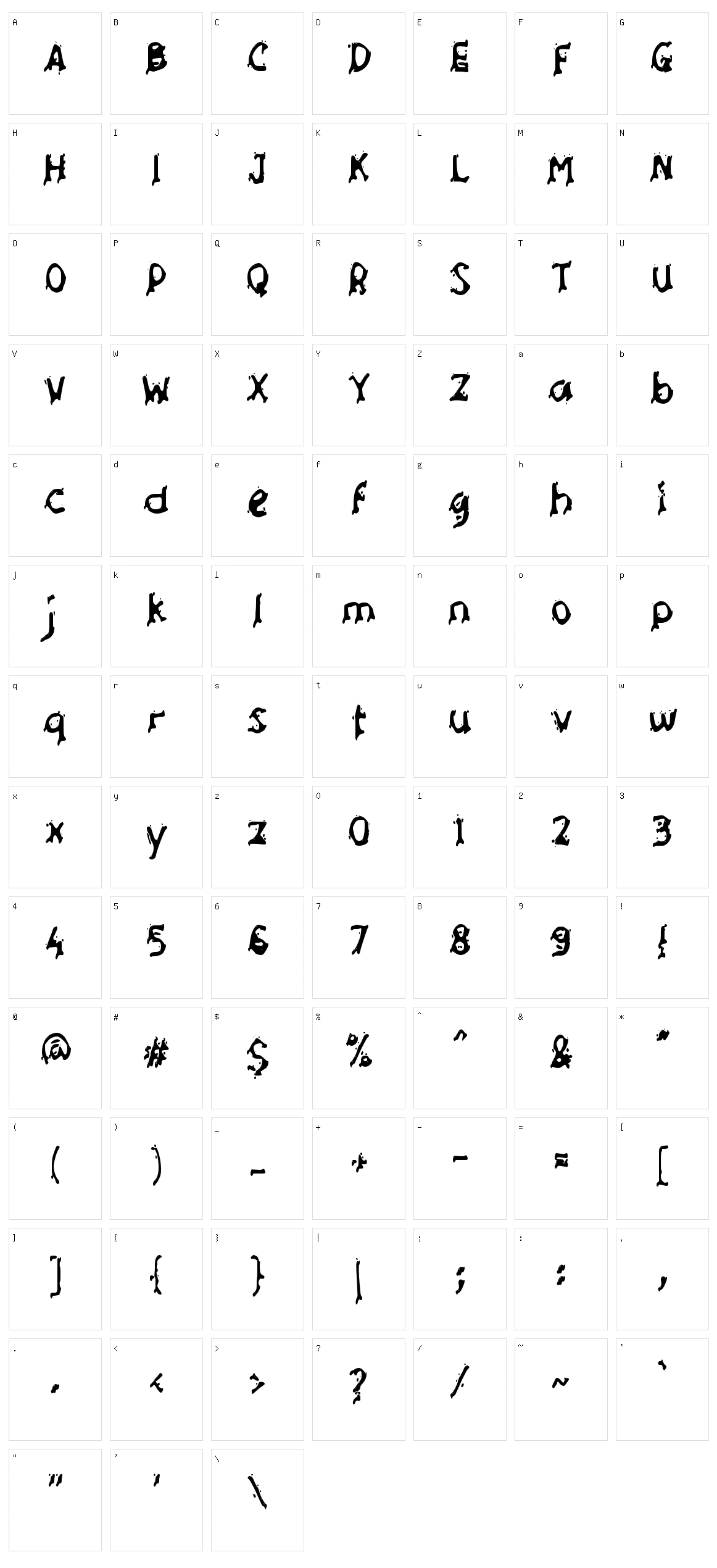
The free font c Cemar is carefully designed by wep, showcasing a thoughtful balance of creativity and usability and falls under the Horror font style. When you download the ZIP file, it contains only 21.12 KB of font files, making it lightweight and quick to download. Please review the license details below to understand permitted usage and distribution rights. If license information is not available, we recommend using this font for personal projects only or contacting the author directly for commercial usage permissions.